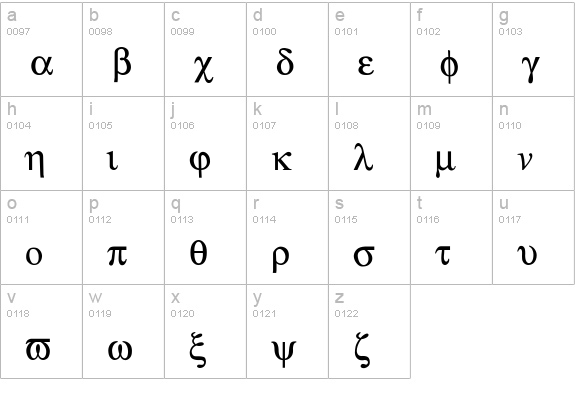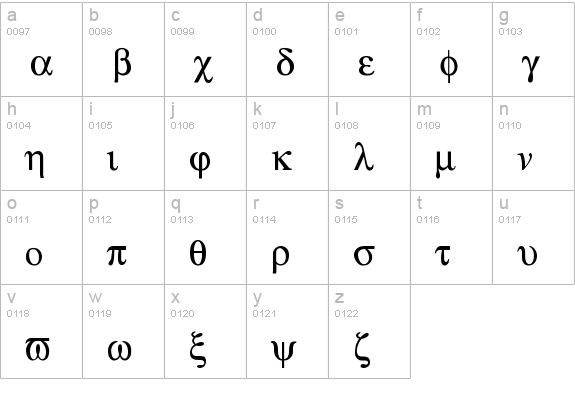
symbol-Light Font Details
symbol-Light is a refined, elegant variant in the symbol typeface family \xE2\x80\x94 well suited to elegant body text, refined sub-headings, and luxury branding.
Introducing symbol-Light font, a sleek and modern typeface that exudes elegance and sophistication. With its clean lines and minimalist design, symbol-Light font is perfect for a wide range of projects, from branding to editorial design. This versatile font is ideal for creating a polished and professional look, making it a must-have for designers and creatives alike. The best part? symbol-Light font is completely free to download at FontsMarket.com, making it accessible to everyone looking to elevate their design projects. Don't miss out on this incredible opportunity to add a touch of class to your work with symbol-Light font. Download it today and take your designs to the next level!